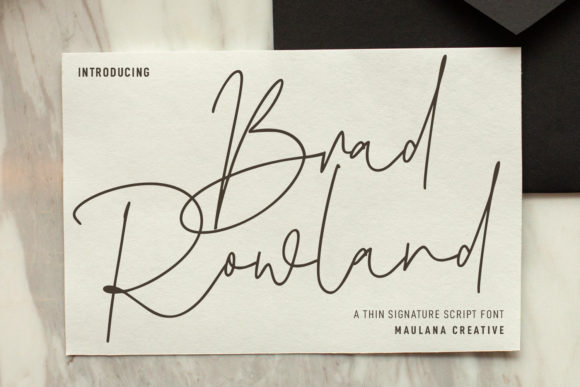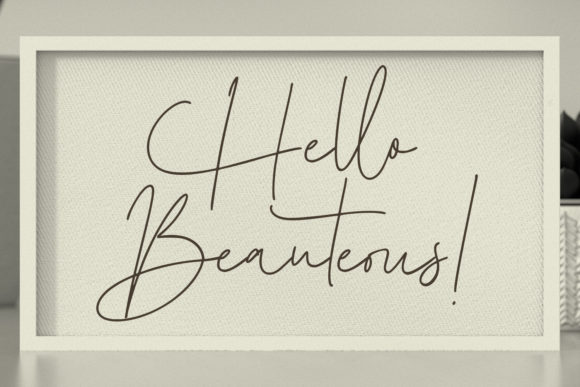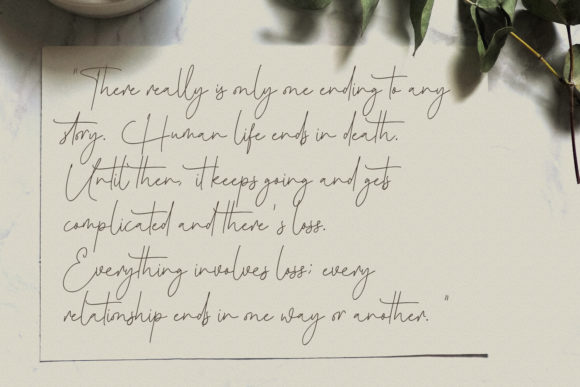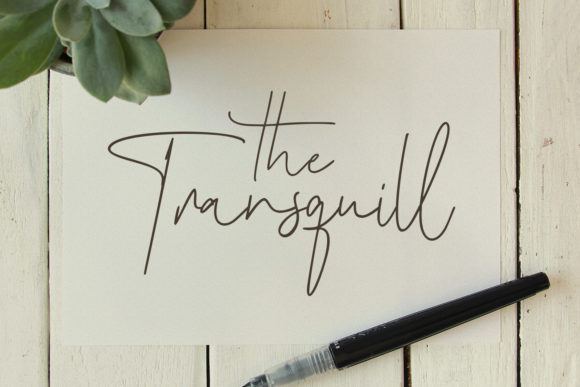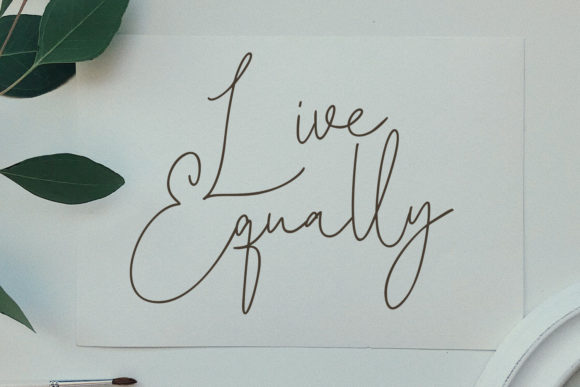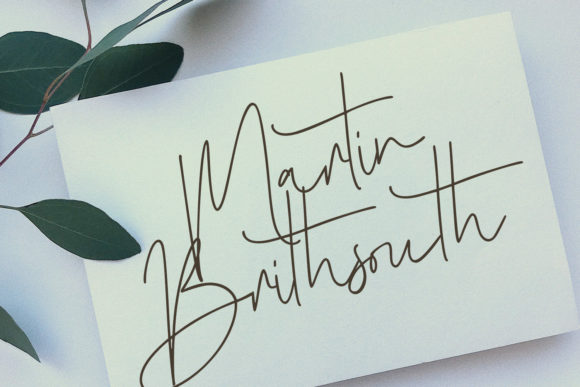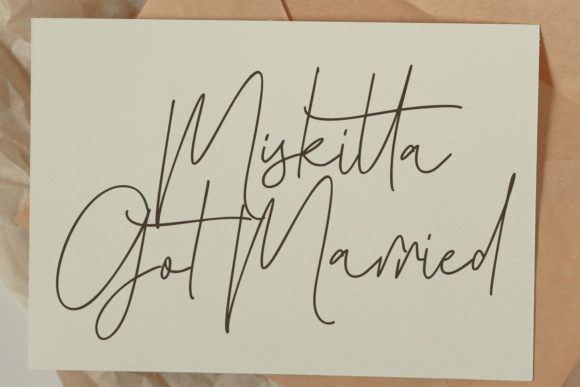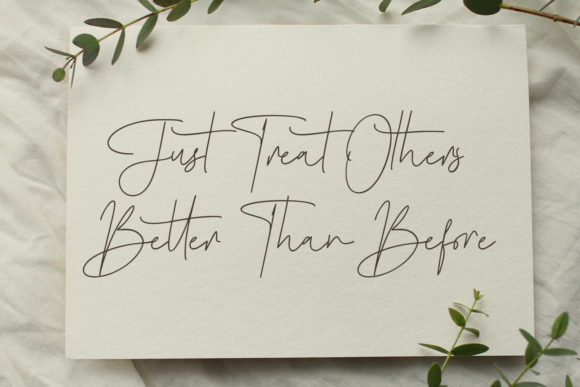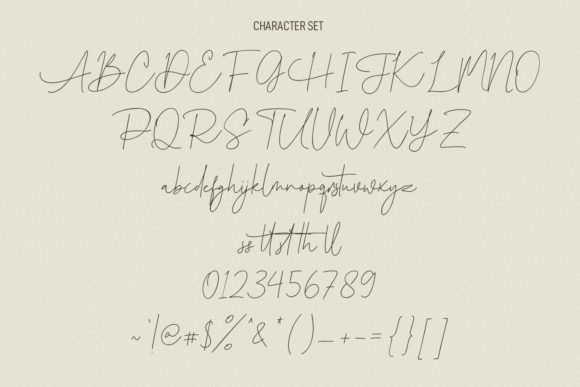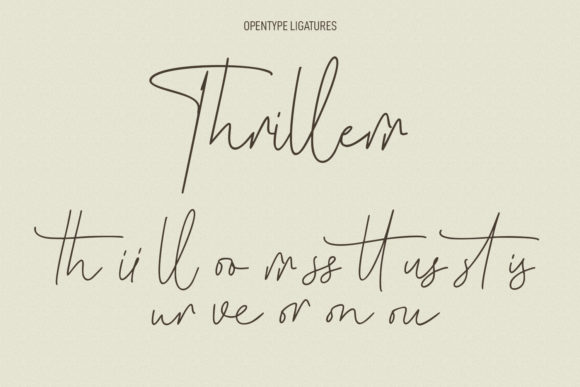
Brad Rowland Font
About Brad Rowland Font
Brad Rowland is a fancy handwritten script font. It features medium contrast strokes, fun characters with, ligatures and alternates.